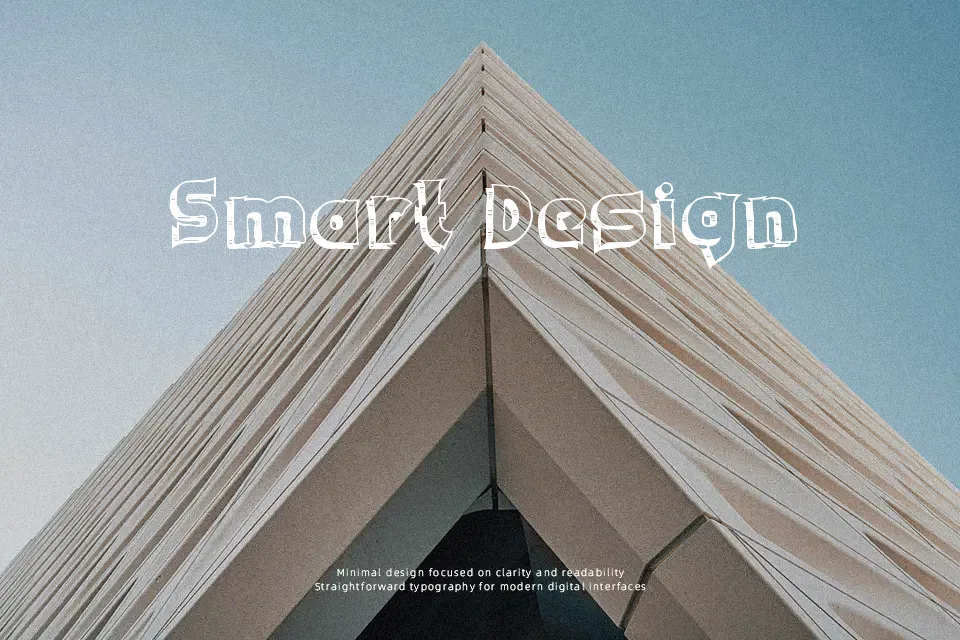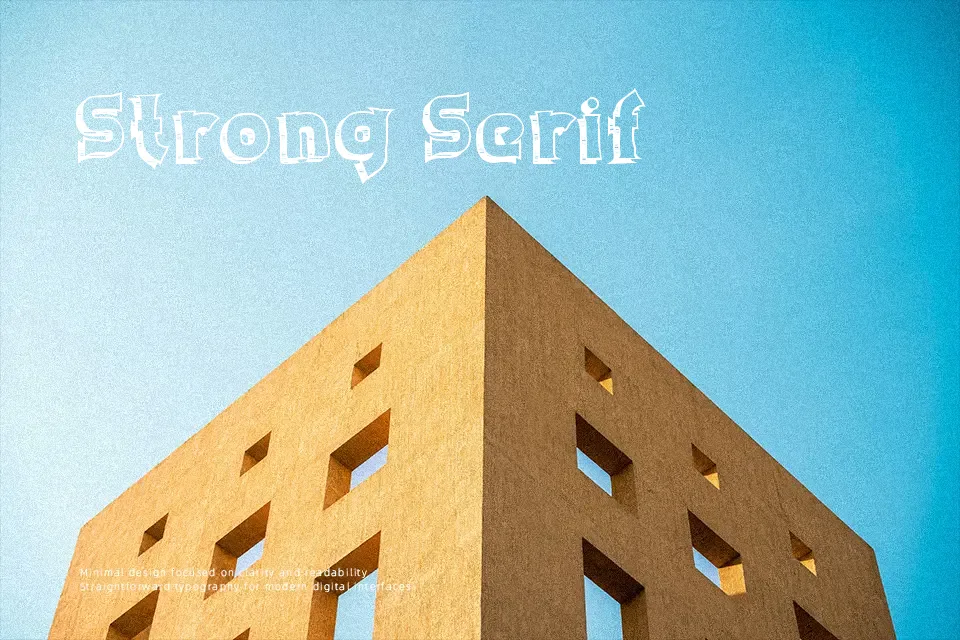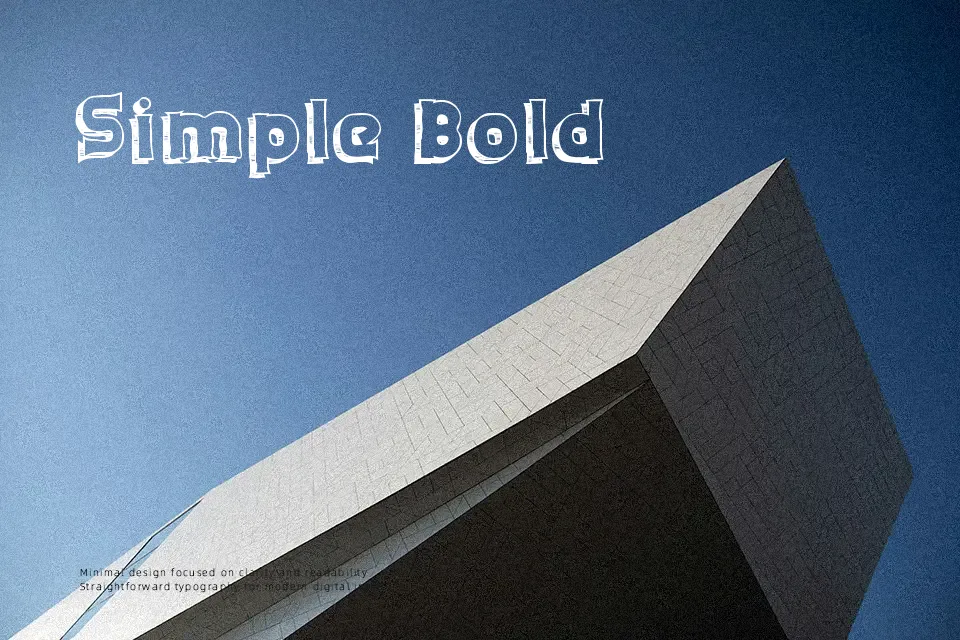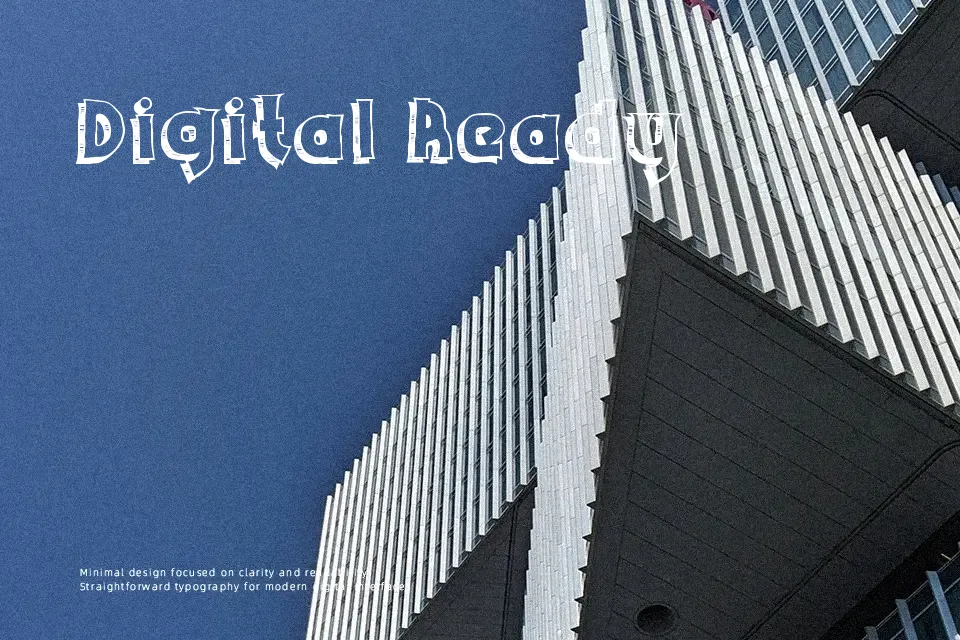
Schwifty Font
Schwifty Font features erratic, asymmetrical stroke thicknesses and angular character contours that produce an unconstrained cartoon aesthetic. The letterforms display varied widths and loose internal proportions, creating an animated rhythm that commands attention on screen or in print. Moderate spacing between characters helps preserve individual letter distinction across short banner titles and entertainment packaging. However, the heavy structural distortion and irregular terminal treatments noticeably reduce reading comfort in compact settings. Consequently, the typeface remains most effective when applied to prominent display titles, whereas extended paragraphs or dense user interface elements quickly lose legibility.
Best For: animated show title sequences, gaming stream overlays, comic book covers, merchandise graphics
Not Ideal For: extended paragraph text, mobile user interface copy, formal corporate documents, technical data tables
Perfect for film, gaming, and headline, with a bold and cartoon style.